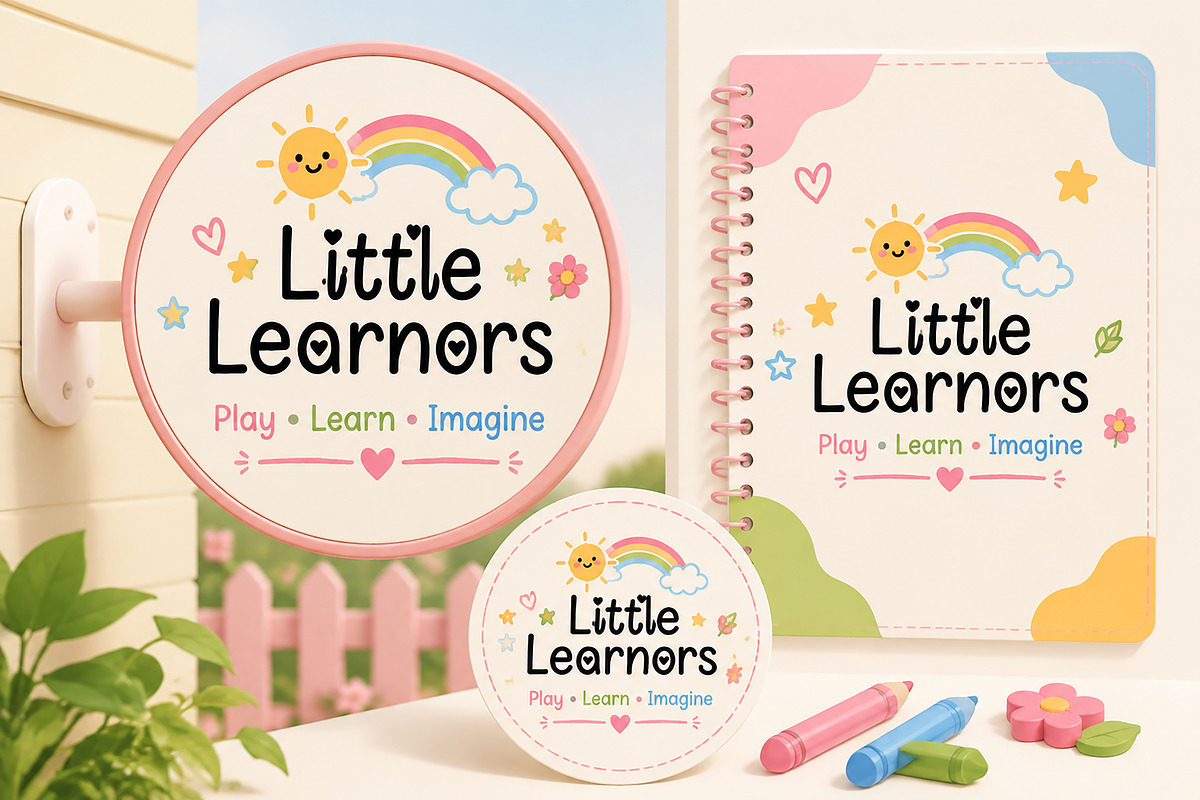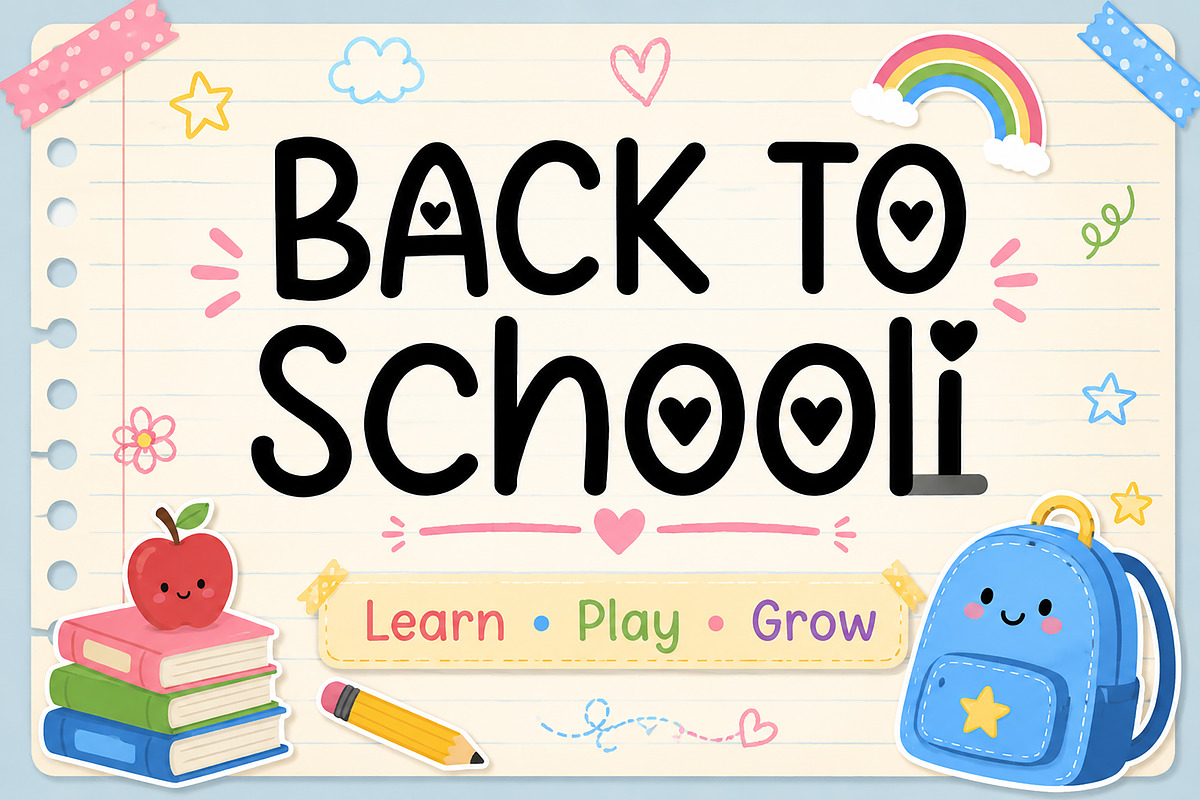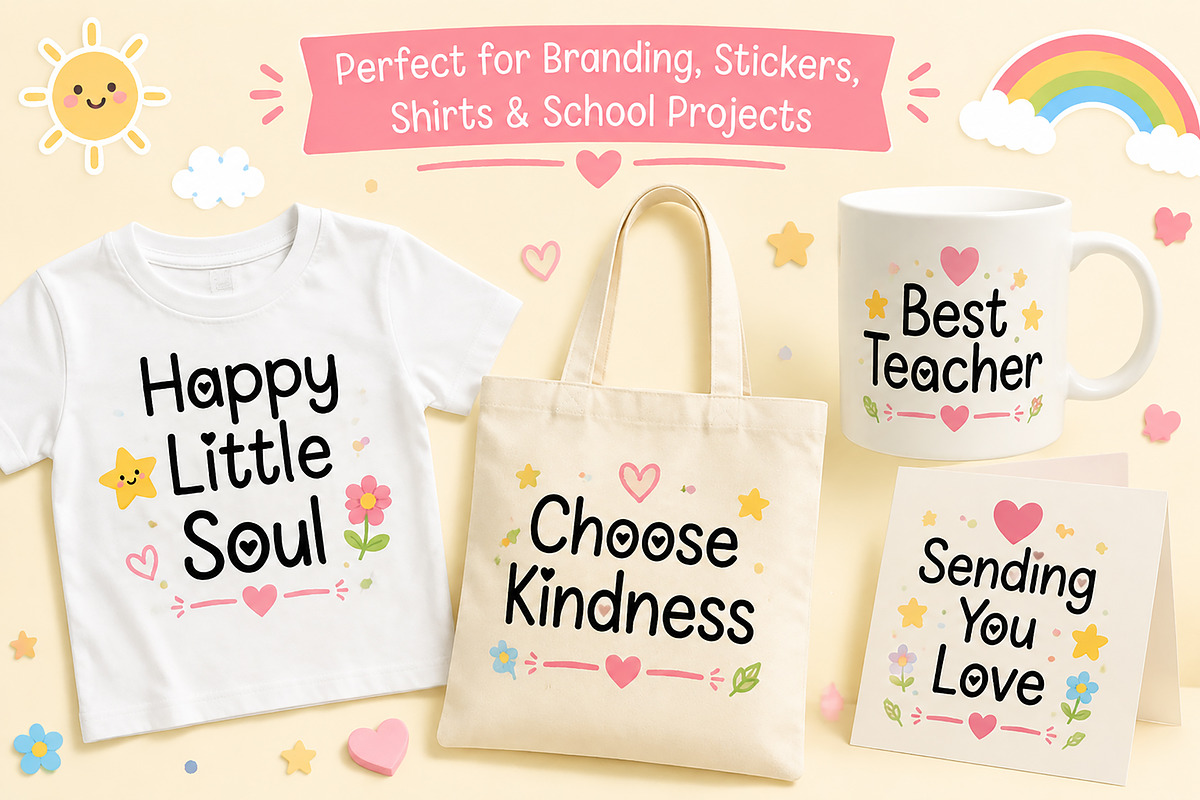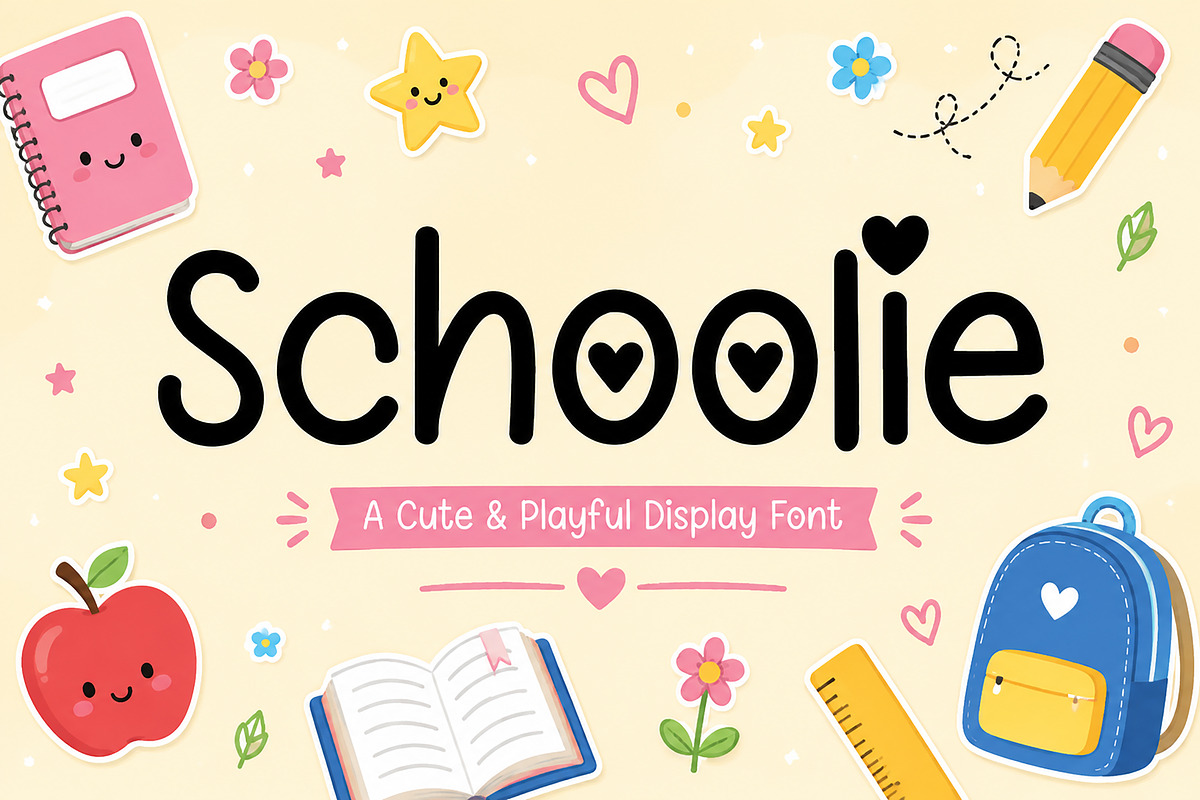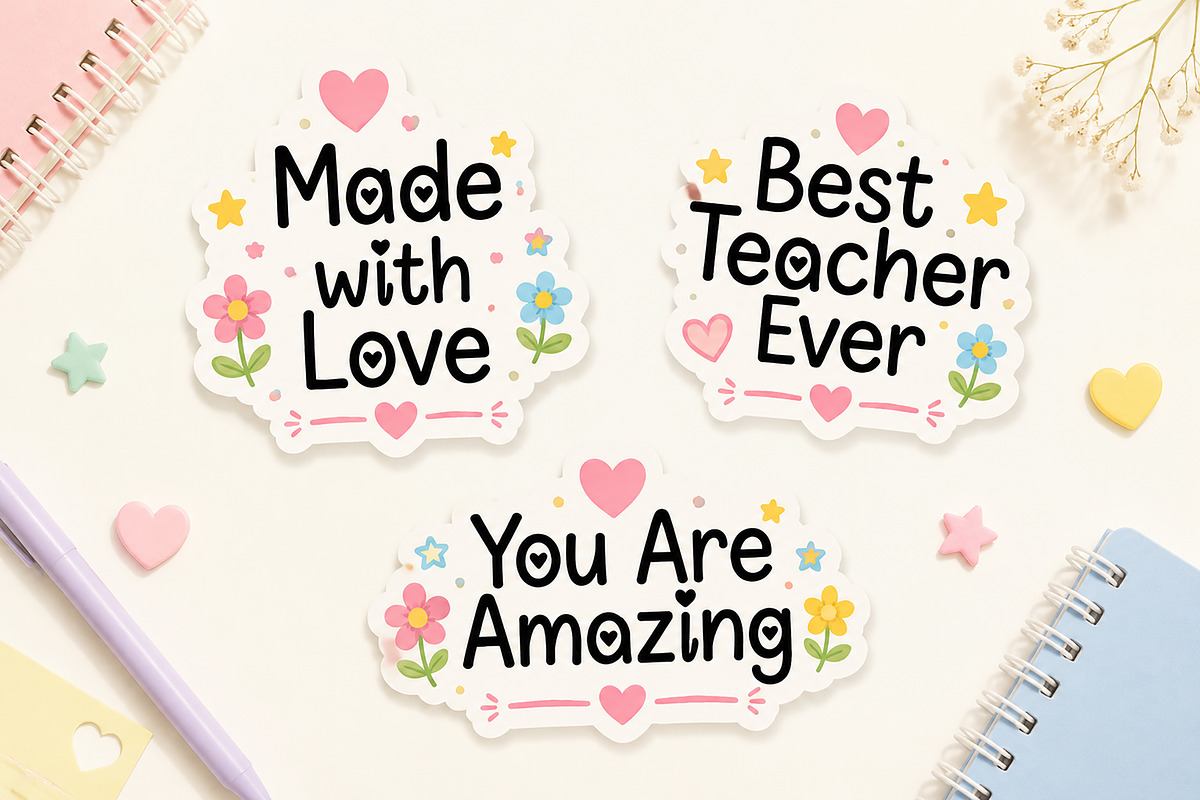
Schoolie
Schoolie – Cute Playful Display Font
Meet Schoolie, a cute and playful display font designed to bring warmth, joy, and creativity to your projects. With its rounded letterforms and adorable heart details, this font is perfect for creating fun, friendly, and eye-catching designs.
Whether you're designing for classrooms, teachers, kids' brands, handmade products, or creative crafts, Schoolie adds a sweet personality that instantly stands out.
Perfect for logos, stickers, classroom decor, greeting cards, Cricut projects, printables, notebooks, T-shirts, mugs, tote bags, packaging, branding, social media graphics, posters, invitations, and much more.
Cute & Playful Style
Rounded Display Font
Heart Letter Details
Easy to Read
Perfect for Branding
Great for Print & Digital Projects
High-Quality Letter Design